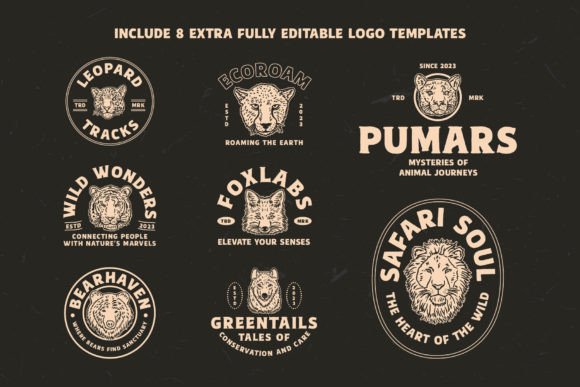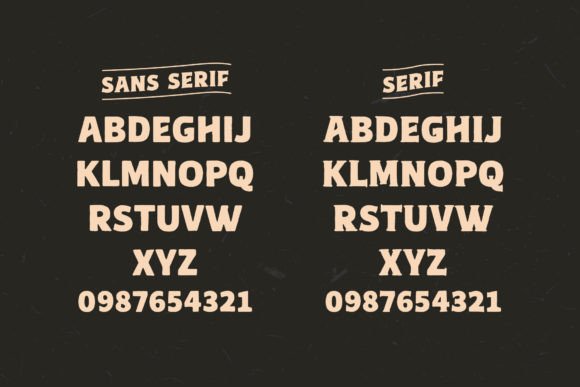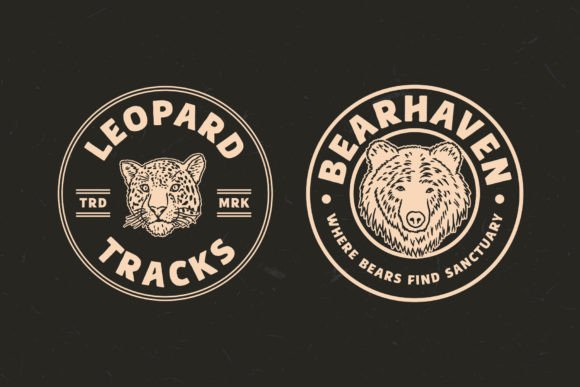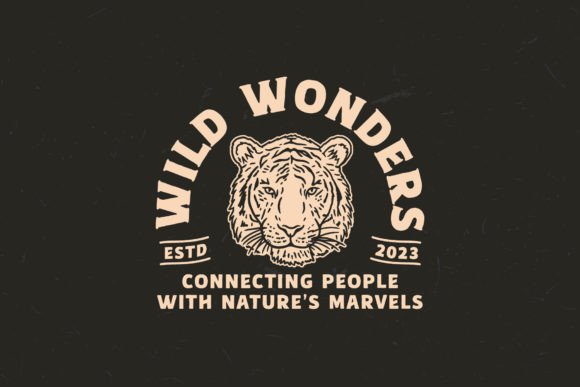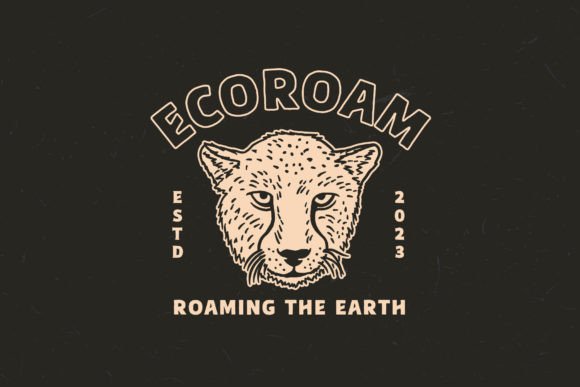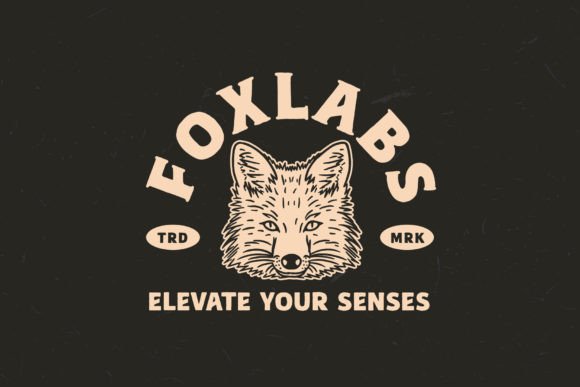
Bateris Font is a bold serif and sans serif font that’s inspired by traditional hand-drawn art. Its unique blend of classic and modern elements makes it perfect for a wide range of design projects, from book covers to logo designs. In this article, I’ll share my experience with Bateris Font, its features, and how to make the most of it in your designs.
First Impressions: What I Love About Bateris Font
Here’s what I love about Bateris Font:
- ✨ High readability: Bateris Font is designed to be easy to read, making it perfect for body text and display text.
- ✅ Multilingual support: This font supports multiple languages, making it a great choice for designers who work with international clients.
- 🎉 Hand-drawn feel: Bateris Font has a unique, hand-drawn feel that adds a touch of personality to any design.
- 📝 Comprehensive character set: This font includes numbers, punctuation, and glyphs, making it a versatile choice for designers.
While Bateris Font is an amazing font, there are a few things to keep in mind:
- 🤔 Kerning issues: Like any font, Bateris Font may require some manual kerning to get the spacing just right.
- ⚠️ Limited use in small sizes: Due to its bold nature, Bateris Font may not be the best choice for very small text sizes.
A Practical Guide to Using Bateris Font
The Story Behind Bateris Font
Bateris Font was inspired by traditional hand-drawn art and a desire to create a font that’s both bold and readable. The designer wanted to create a font that would add a touch of personality to any design, while still being easy to read. The result is a font that’s perfect for designers who want to add a bit of whimsy to their work.
| What is Bateris Font? | Bateris Font is a bold serif and sans serif font inspired by traditional hand-drawn art. |
| What is Bateris Font used for? | Bateris Font is perfect for a wide range of design projects, including book covers, logo designs, badges, packaging, posters, and more. |
| Is Bateris Font easy to read? | Yes, Bateris Font is designed to be highly readable, making it perfect for body text and display text. |
| Does Bateris Font support multiple languages? | Yes, Bateris Font supports multiple languages, making it a great choice for designers who work with international clients. |